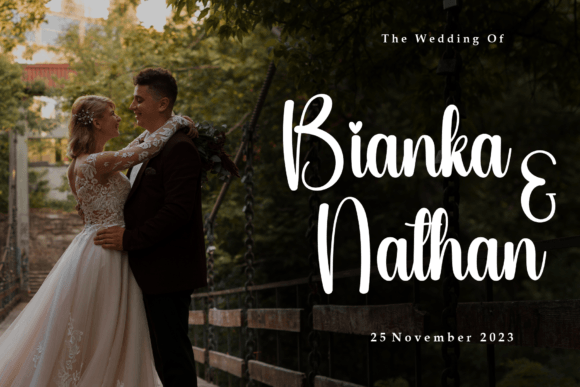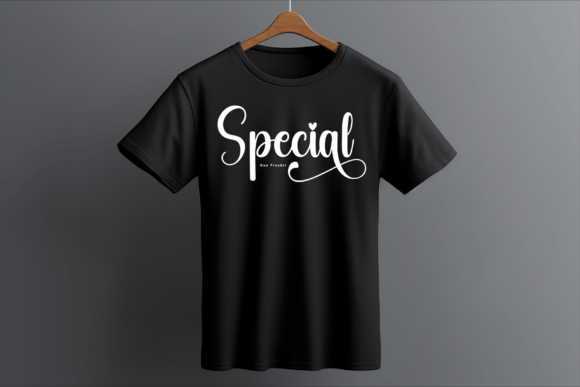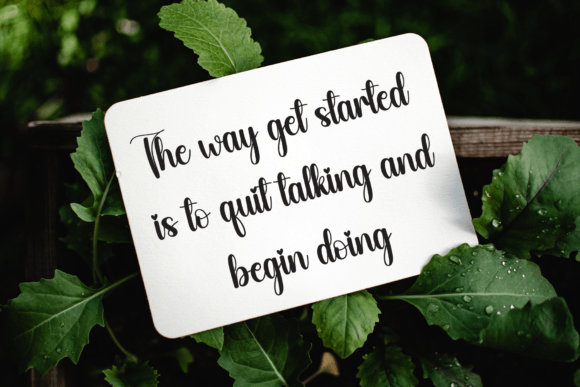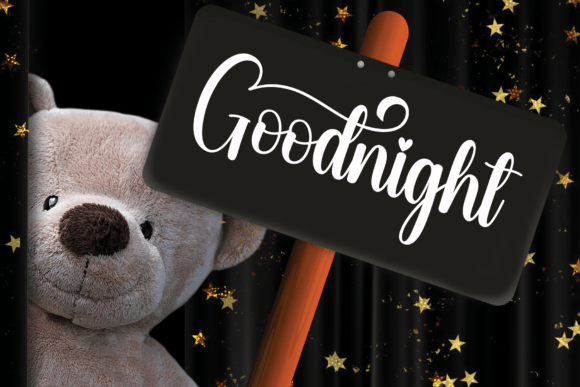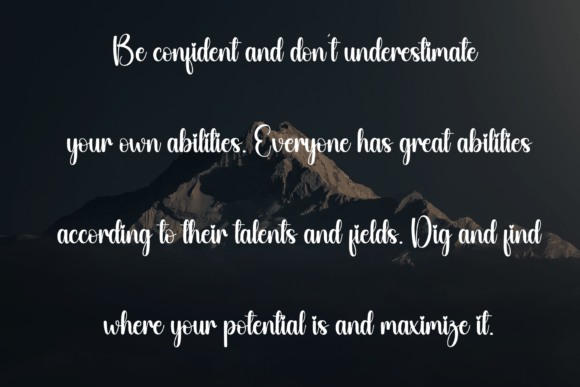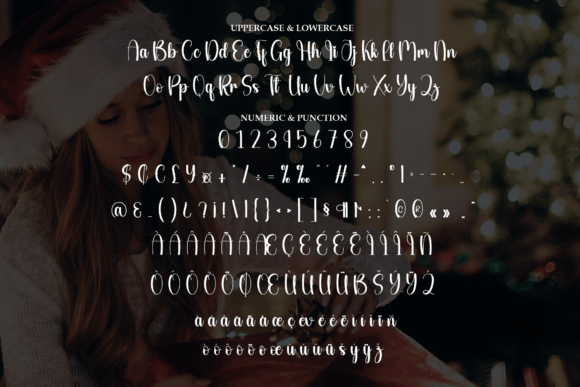
Introducing Beauty Santa Font: The Perfect Addition to Your Design Collection
Are you a designer or crafter looking for a unique and elegant font to add to your collection? Look no further than Beauty Santa Font! This stunning handwritten font is sure to capture your heart with its flowing lines, elegant touch, and timeless style.
What is Beauty Santa Font?
Beauty Santa Font is a beautifully crafted handwritten font that exudes elegance and sophistication. Its flowing lines and curves give it a distinct and recognizable style that is sure to make your designs stand out. Whether you’re working on a holiday project, a branding campaign, or simply want to add a personal touch to your craft, Beauty Santa Font is the perfect choice.
Key Features of Beauty Santa Font
- Elegant and flowing lines: Beauty Santa Font features beautiful, flowing lines that give it a sense of movement and fluidity.
- Handwritten style: This font is carefully crafted to mimic the look and feel of handwritten text, giving it a personal and unique touch.
- Timeless style: Unlike trendy fonts that quickly go out of style, Beauty Santa Font has a timeless quality that will ensure your designs remain stylish for years to come.
- Distinct and recognizable: The unique combination of lines, curves, and flourishes in Beauty Santa Font makes it instantly recognizable and memorable.
Why Choose Beauty Santa Font?
So why should you choose Beauty Santa Font for your next project? Here are just a few reasons:
- Perfect for holiday projects: With its elegant and festive feel, Beauty Santa Font is ideal for holiday-themed designs, such as Christmas cards, invitations, and decorations.
- Great for branding and marketing: The unique and recognizable style of Beauty Santa Font makes it perfect for branding and marketing campaigns, helping you to establish a strong and memorable visual identity.
- Adds a personal touch: Whether you’re working on a craft project or designing a professional brand, Beauty Santa Font adds a personal and human touch that will help you connect with your audience.
How to Use Beauty Santa Font
Using Beauty Santa Font is easy! Here are a few tips to get you started:
- Pair with complementary fonts: Combine Beauty Santa Font with complementary fonts to create a visually appealing and harmonious design.
- Experiment with colors and textures: Don’t be afraid to experiment with different colors and textures to add depth and interest to your design.
- Use it for headlines and titles: The elegant and flowing lines of Beauty Santa Font make it perfect for headlines and titles, adding a touch of sophistication to your design.
In conclusion, Beauty Santa Font is a stunning handwritten font that is sure to capture your heart with its elegant touch, flowing lines, and timeless style. Whether you’re a designer, crafter, or simply someone who appreciates beautiful typography, Beauty Santa Font is a must-have addition to your collection. So why wait? Download Beauty Santa Font today and start creating spectacular designs that will leave a lasting impression!